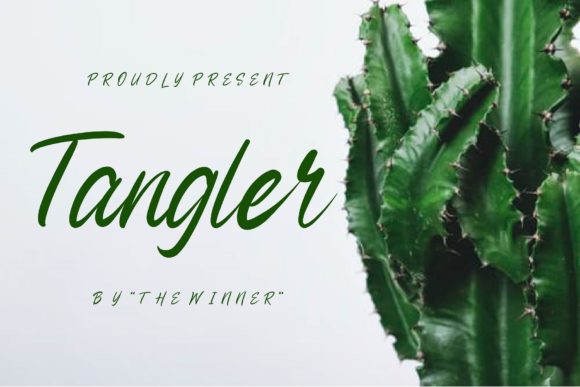
Introducing Tangler Font, the ultimate script font designed to transform your creations into captivating works of art. Created by The1stWinner, this relaxed and casual handwritten font is the perfect addition to your font collection. With its unique paint brushed style, Tangler effortlessly adds an eye-catching touch to any project.
Let your imagination run wild as Tangler brings a sense of creativity and playfulness to your designs. Whether you're working on a web app, logo, poster, or social media graphics, this font is the best choice to make your creations shine. Its versatility allows it to adapt to various themes and styles, making it a must-have for both personal and professional projects.
With Tangler Font, you can truly stand out from the crowd. Its charming and authentic handwritten look adds a personal touch, creating a connection with your audience. Capture attention and leave a lasting impression with the font that effortlessly combines style and readability.
But Tangler is more than just a font – it's a tool that empowers you to express your emotions and tell your story. Bring your words to life with the strokes of Tangler, as each character carries a unique energy that resonates with your message. Whether you want to convey excitement, elegance, or a sense of adventure, this font has got you covered.
In summary, Tangler Font is the game-changer you've been waiting for. Its relaxed and casual script style, combined with its versatility and emotional impact, makes it an essential tool for any designer or marketer. Experience the magic of Tangler and elevate your creations to new heights today!